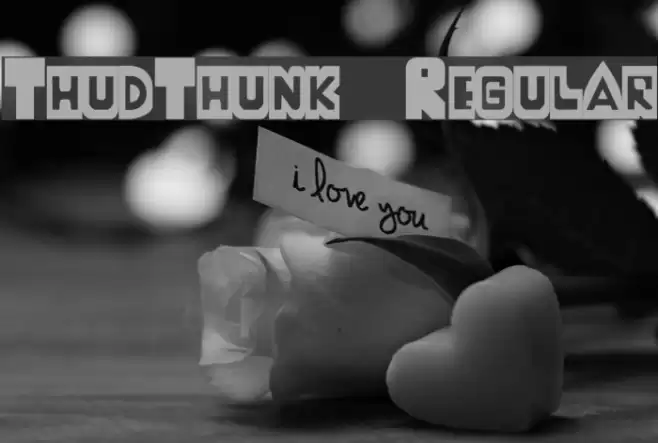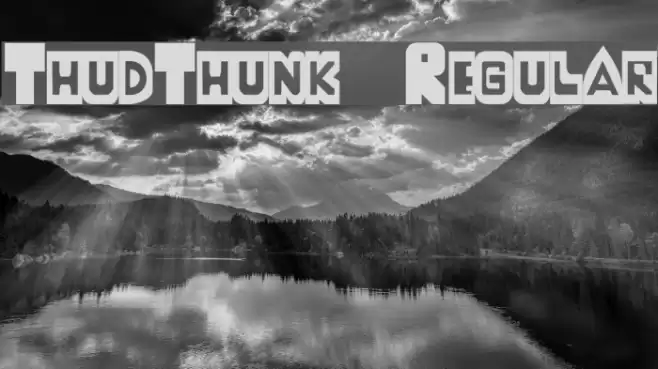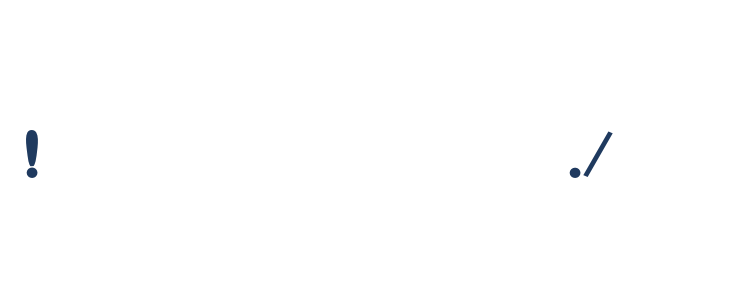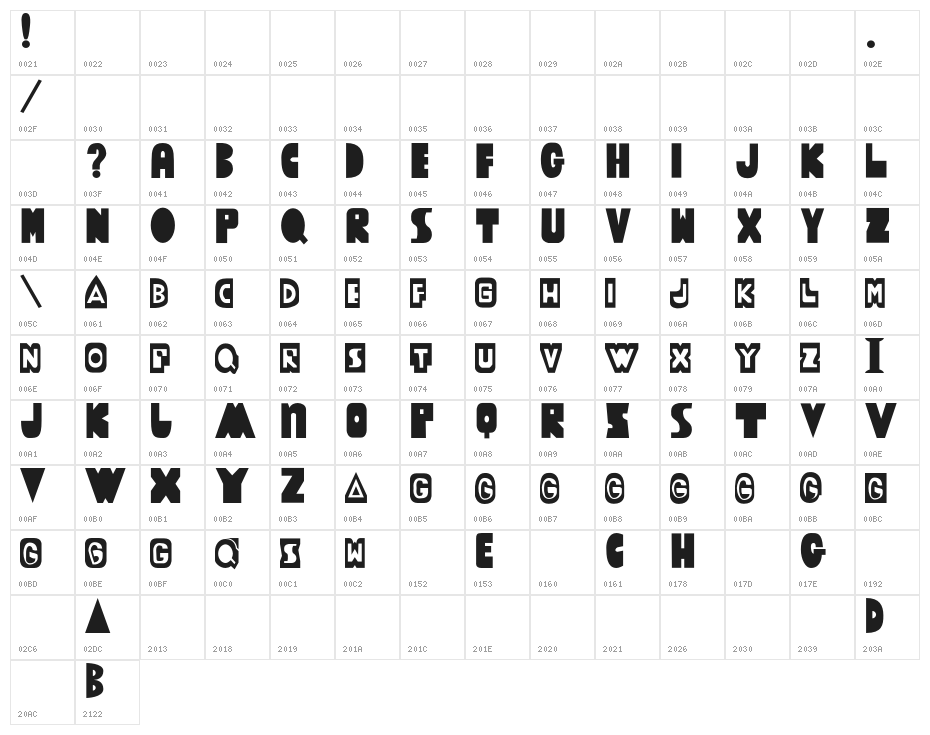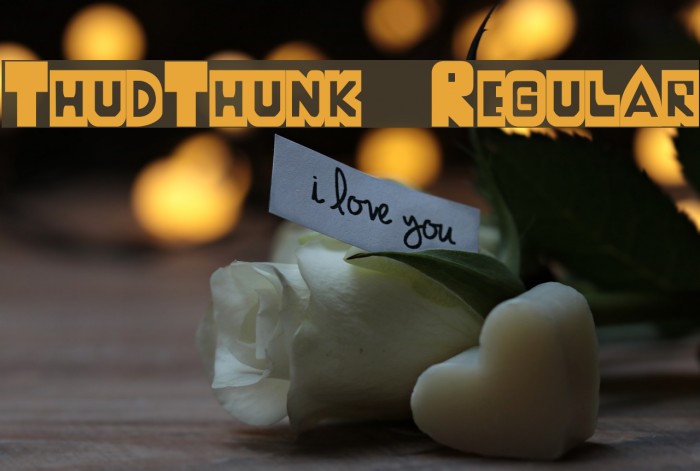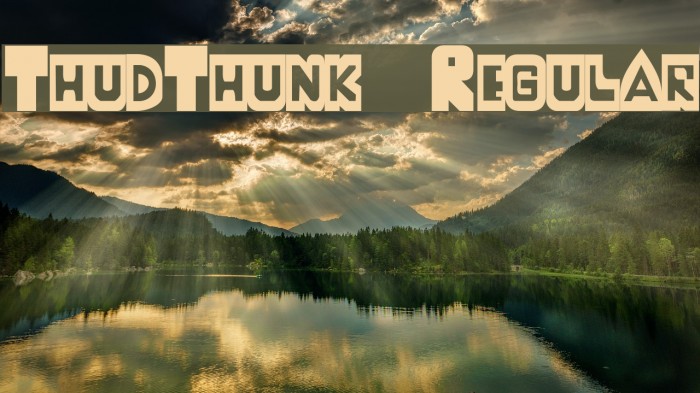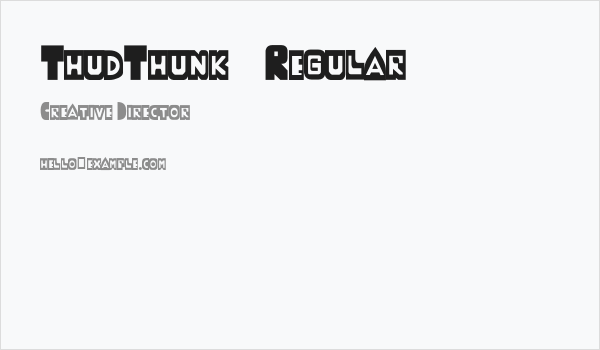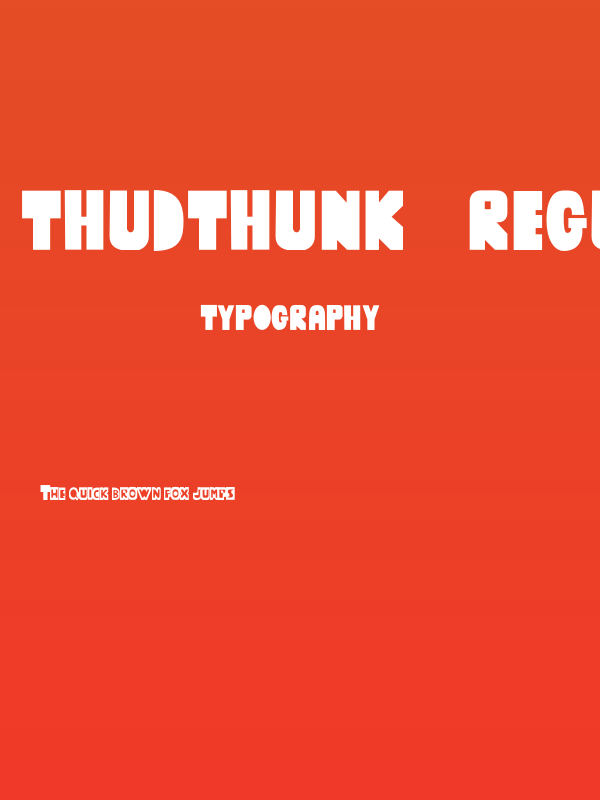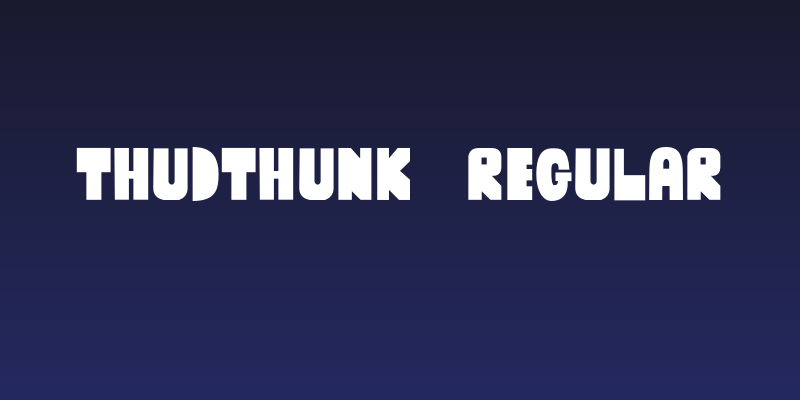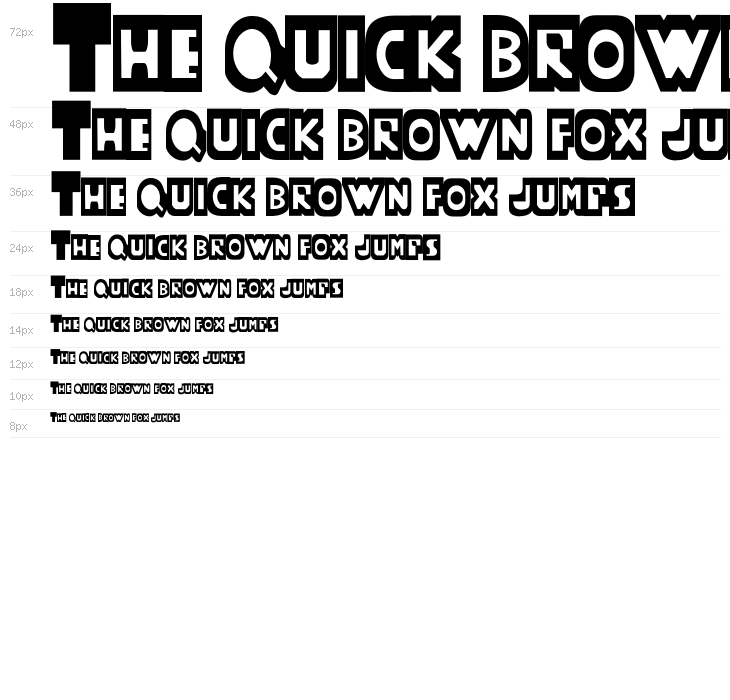
ThudThunk-Regular Font
ThudThunk-Regular Description
This font features a bold and impactful design with a strong geometric influence. The uppercase letters are characterized by thick, solid strokes and a blocky appearance, giving them a commanding presence. The lowercase letters maintain the same boldness, ensuring consistency throughout the typeface. The font's style is reminiscent of retro and vintage aesthetics, with a modern twist that makes it suitable for contemporary designs. Its unique structure and heavy weight make it ideal for attention-grabbing headlines and logos. The font's design is both playful and assertive, making it versatile for various creative projects.
A bold, geometric font with a retro-modern style, perfect for impactful headlines from Uncategorized fonts.
- Proposed Projects: Ideal for branding, posters, and any design requiring a strong visual impact.
- Overall Style: Retro, Modern